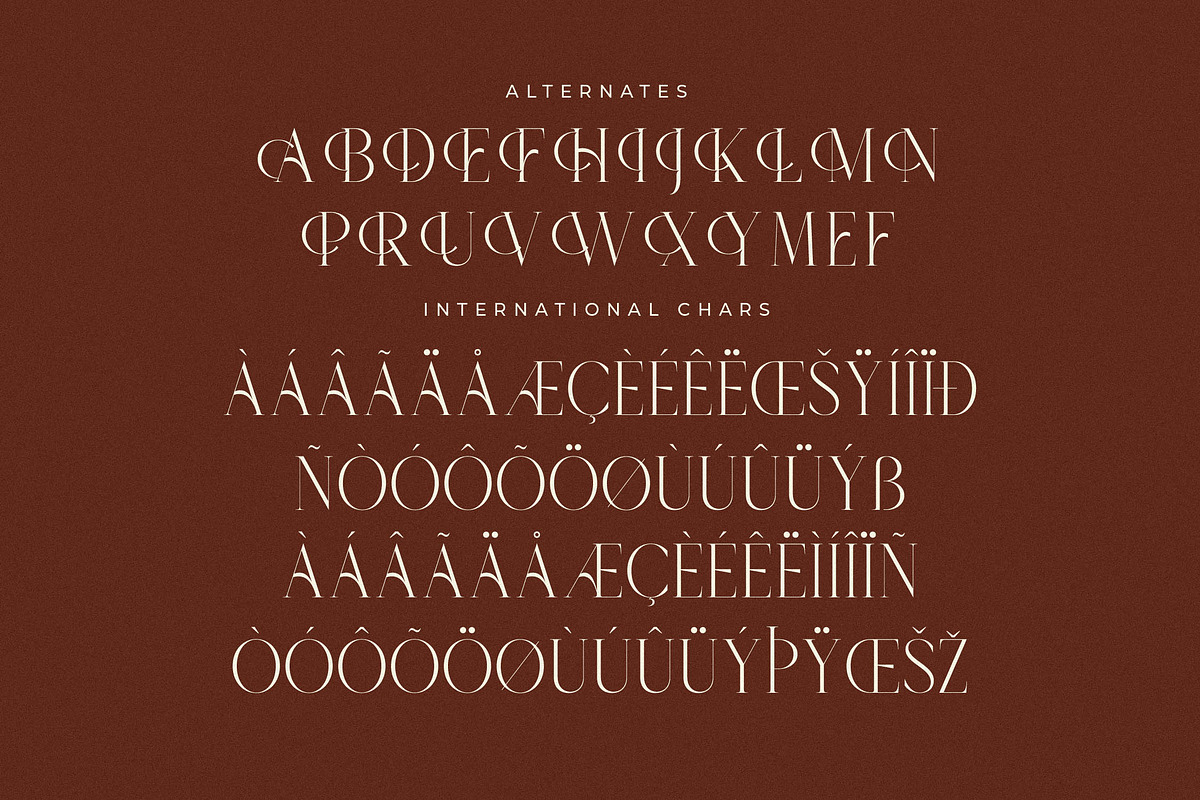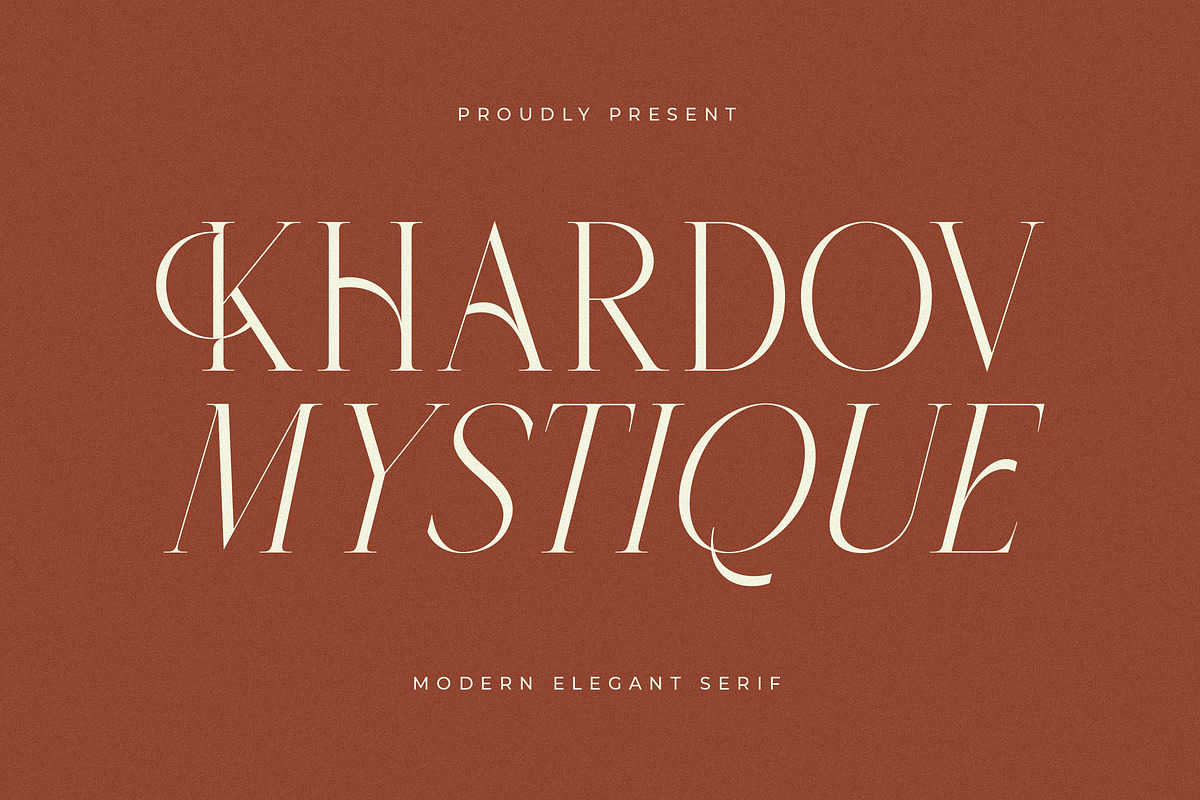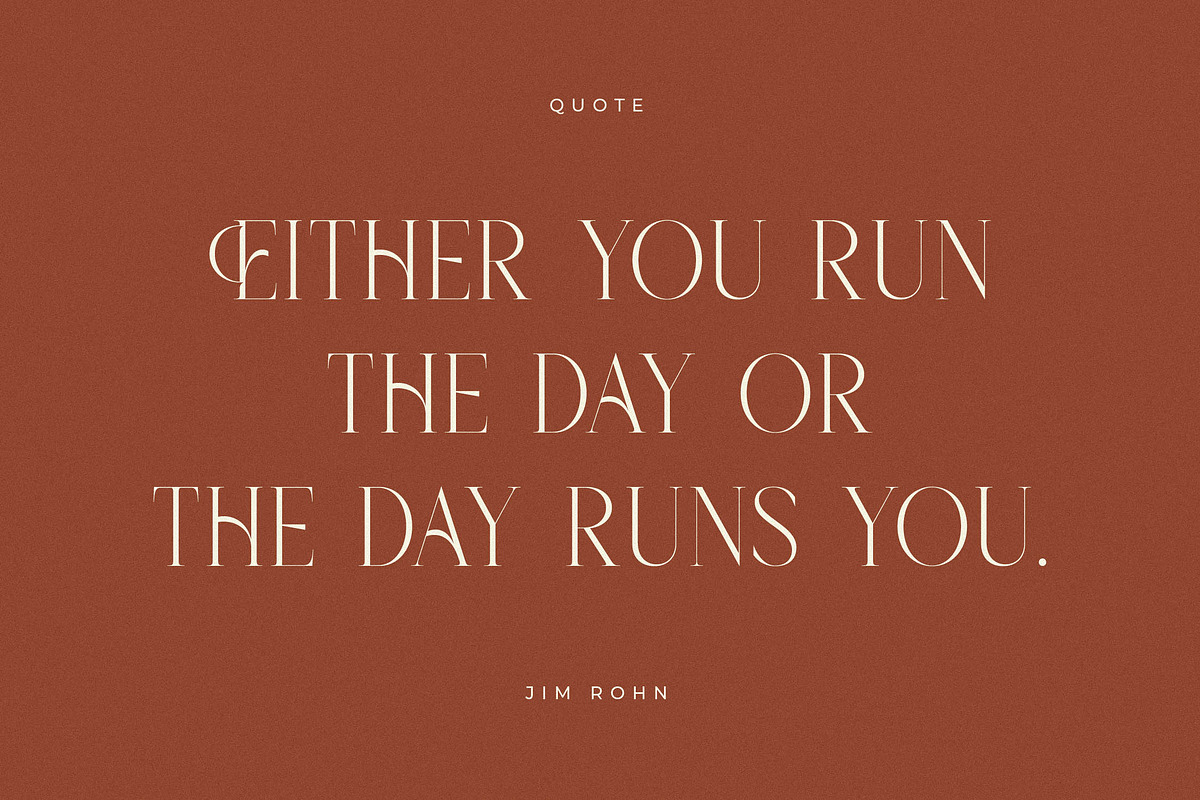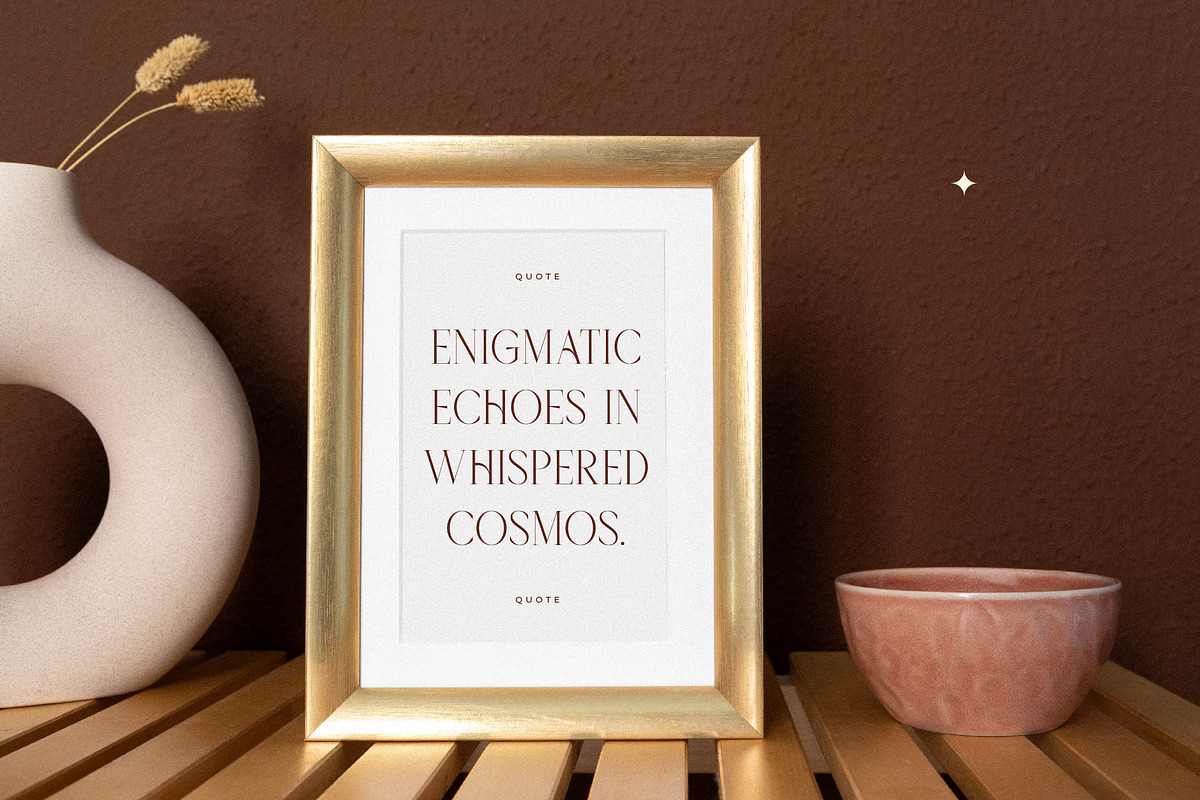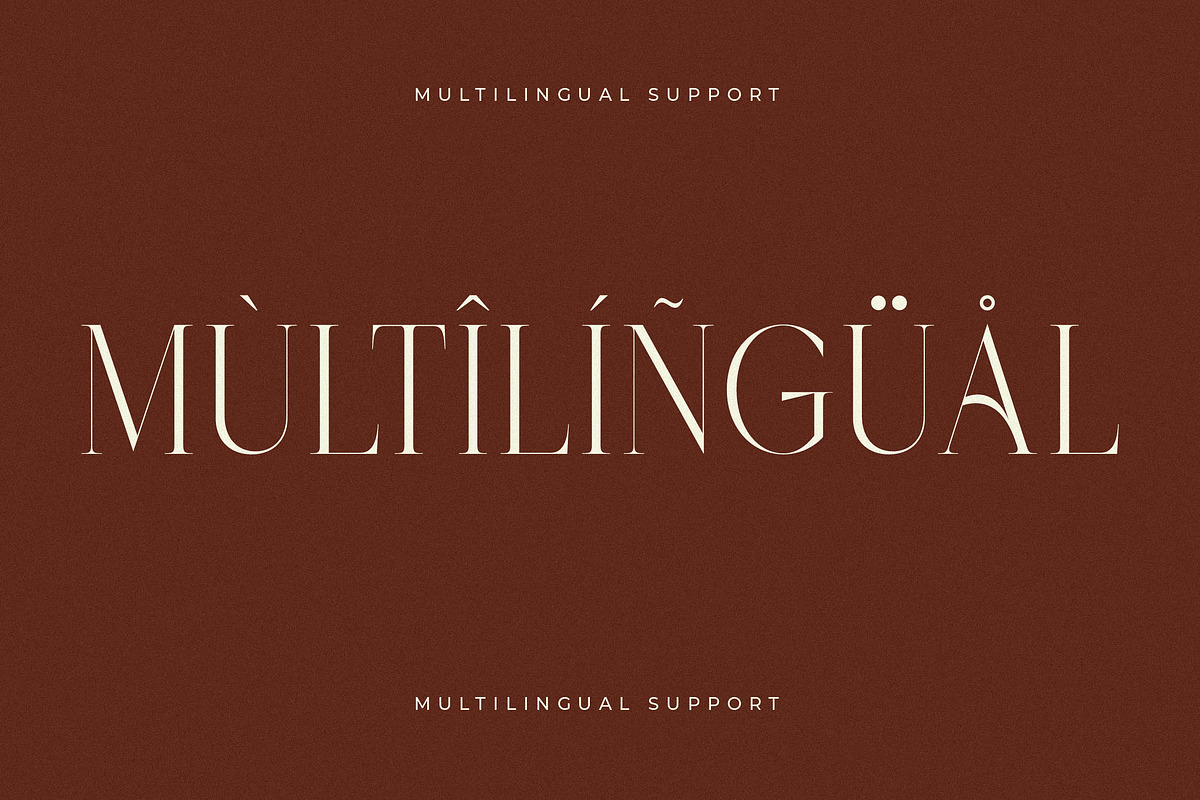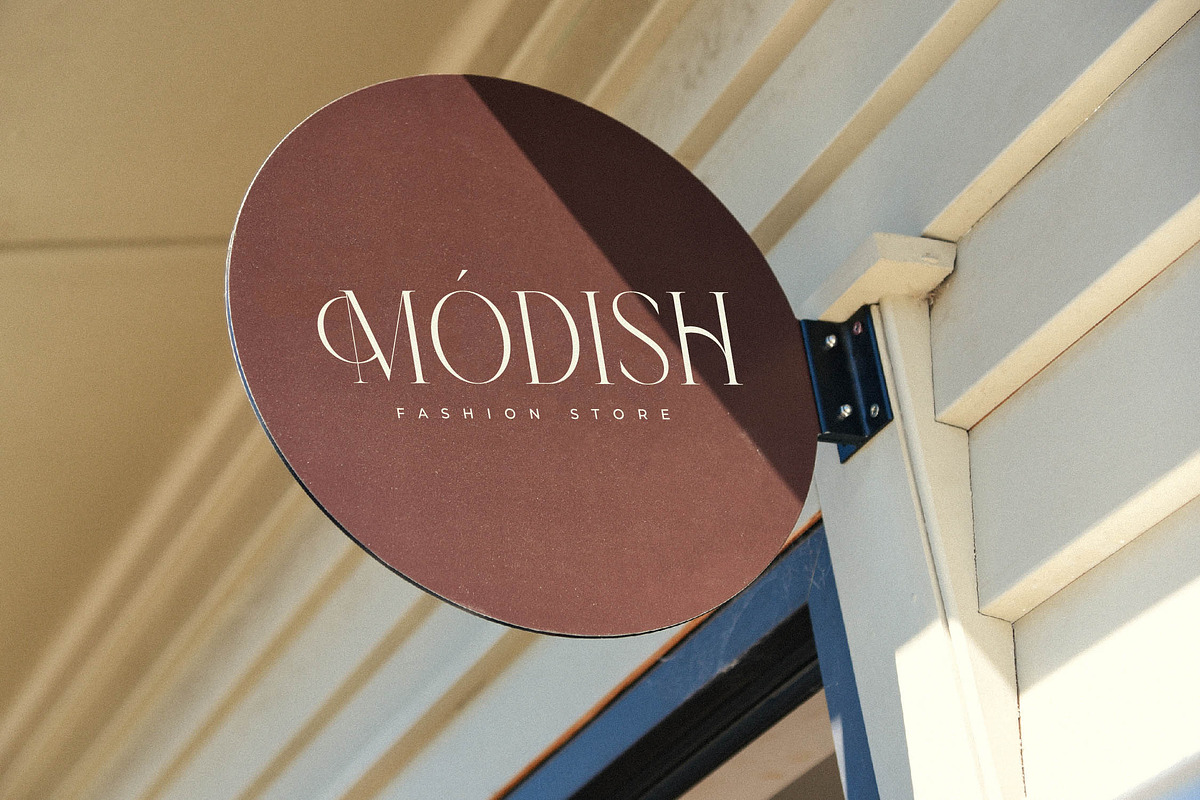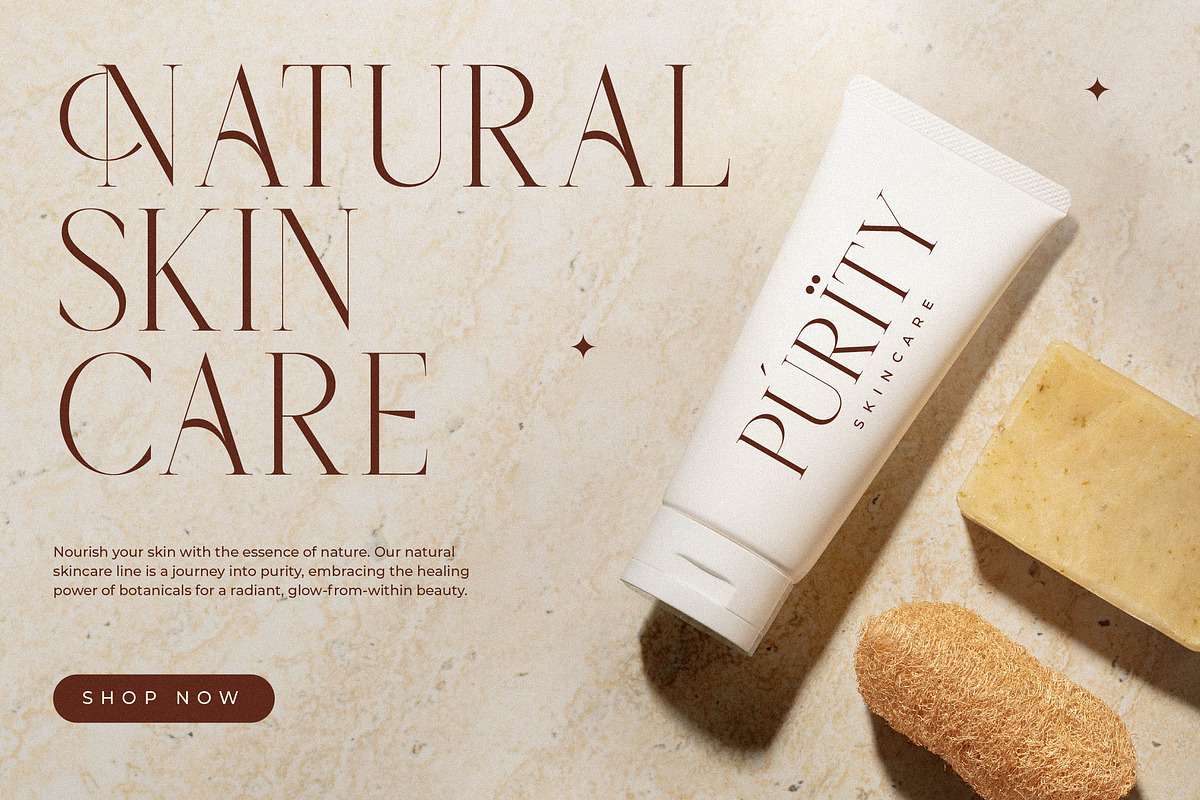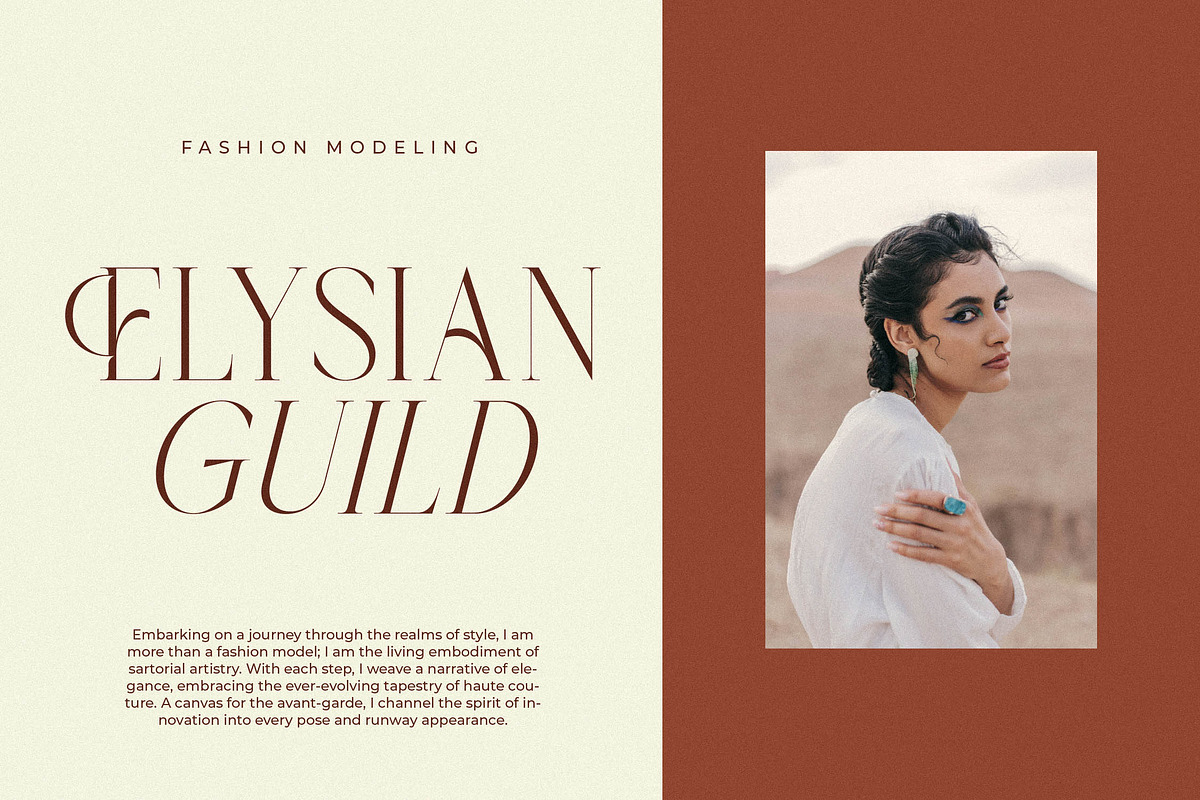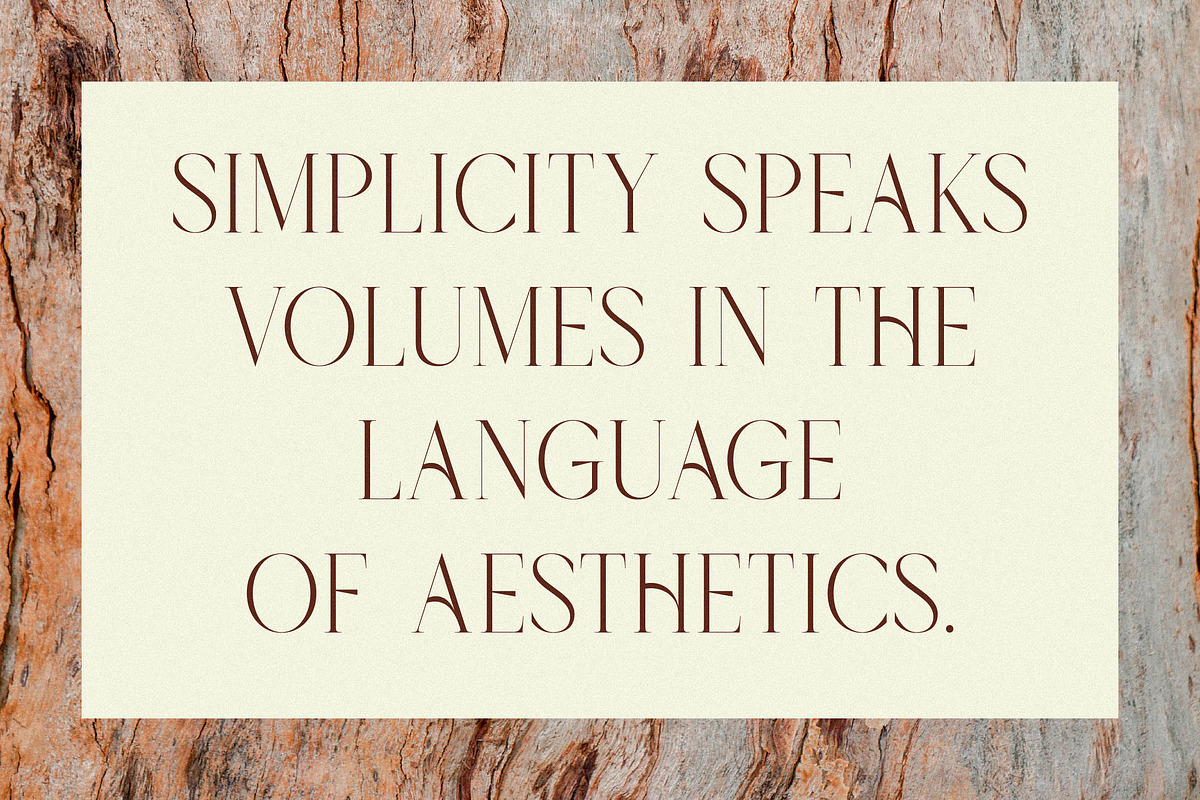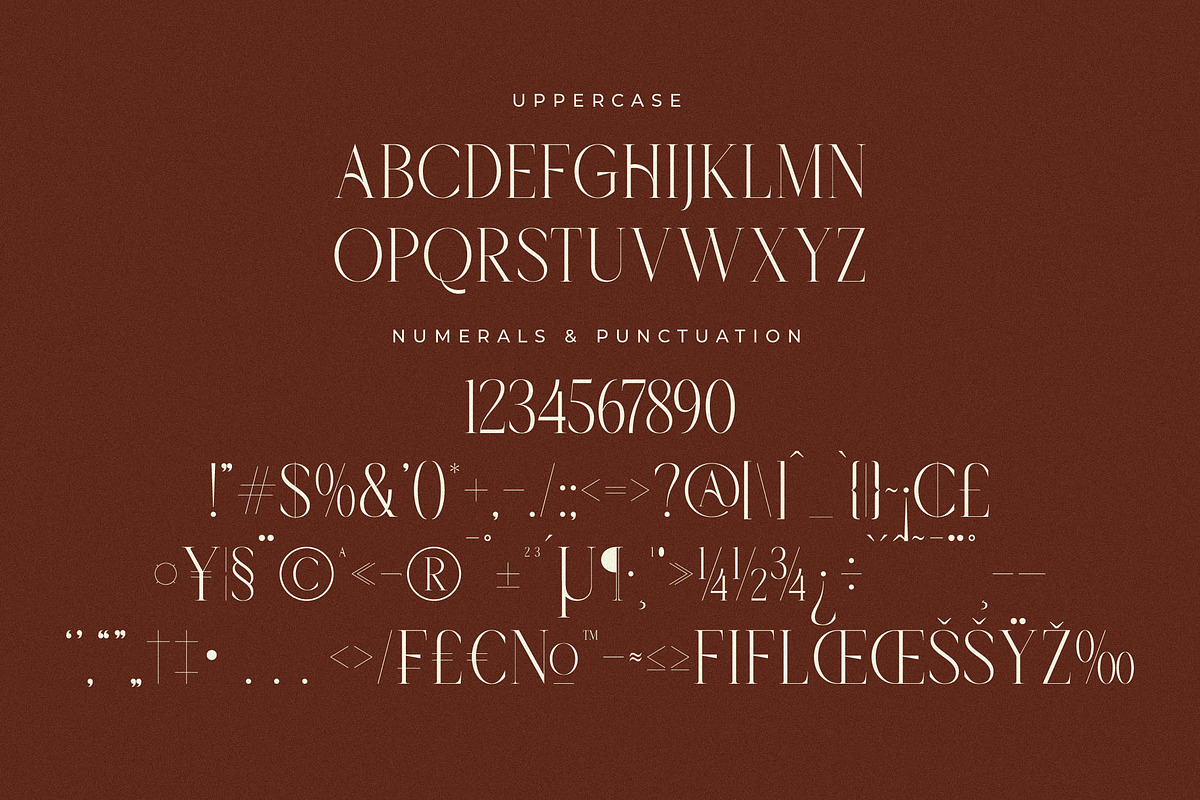
Khardov Mystique Modern Serif
Khardov Mystique – Modern Elegant Serif , from Letterena, is a Luxury Serif font, suitable for any projects such as: logos, branding projects, homeware designs, product packaging, mugs, quotes, posters, shopping bags, t-shirts, book covers, name card, invitation cards, greeting cards, label, photography, watermark, special events, and all your other luxury and beautiful projects that need a Luxury serif taste.